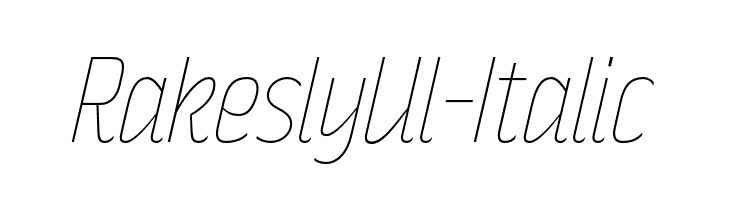
A sleek, italicized font with thin, consistent strokes and a modern, elegant design.
A sleek, ultra-light, and modern font with tall, narrow characters.